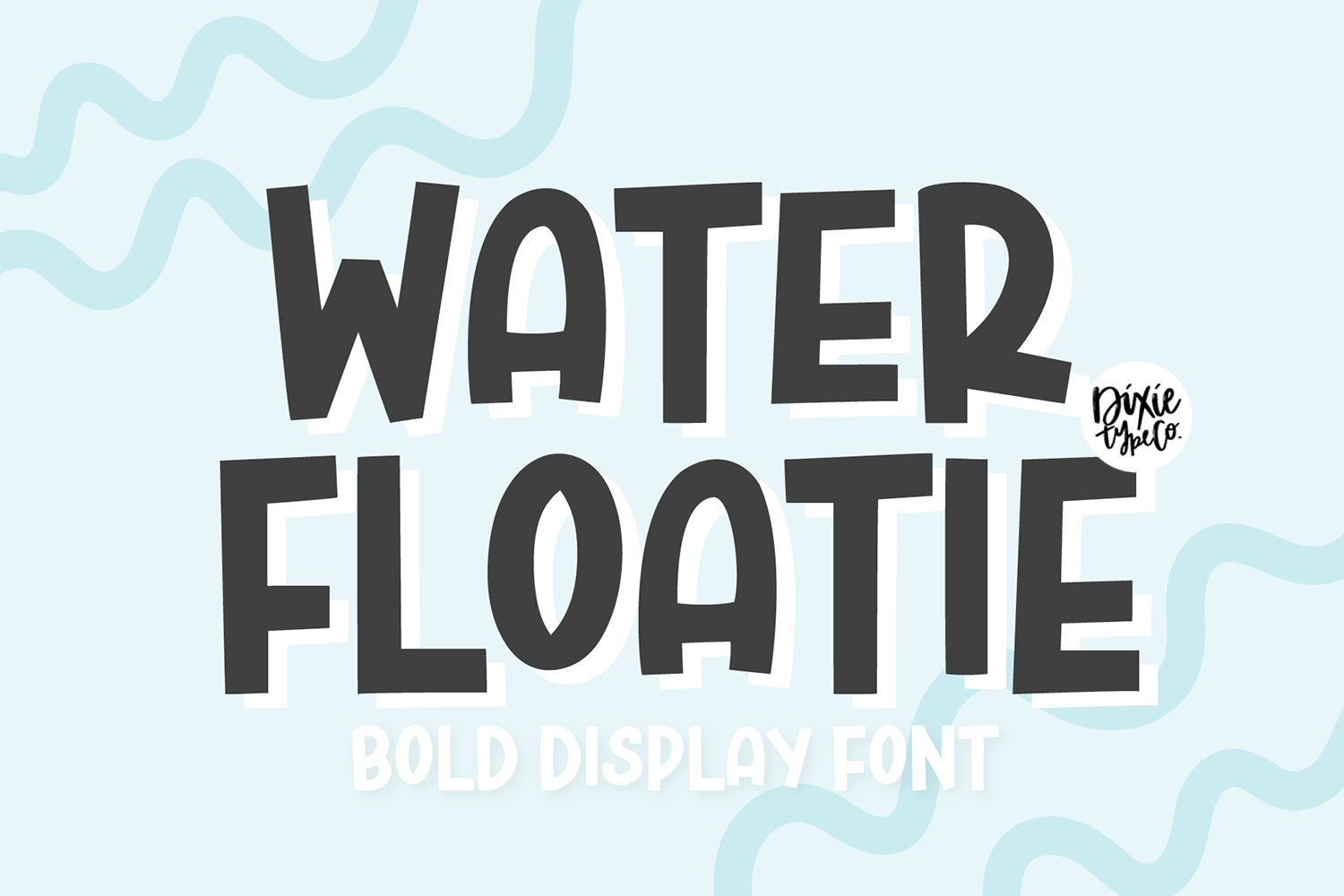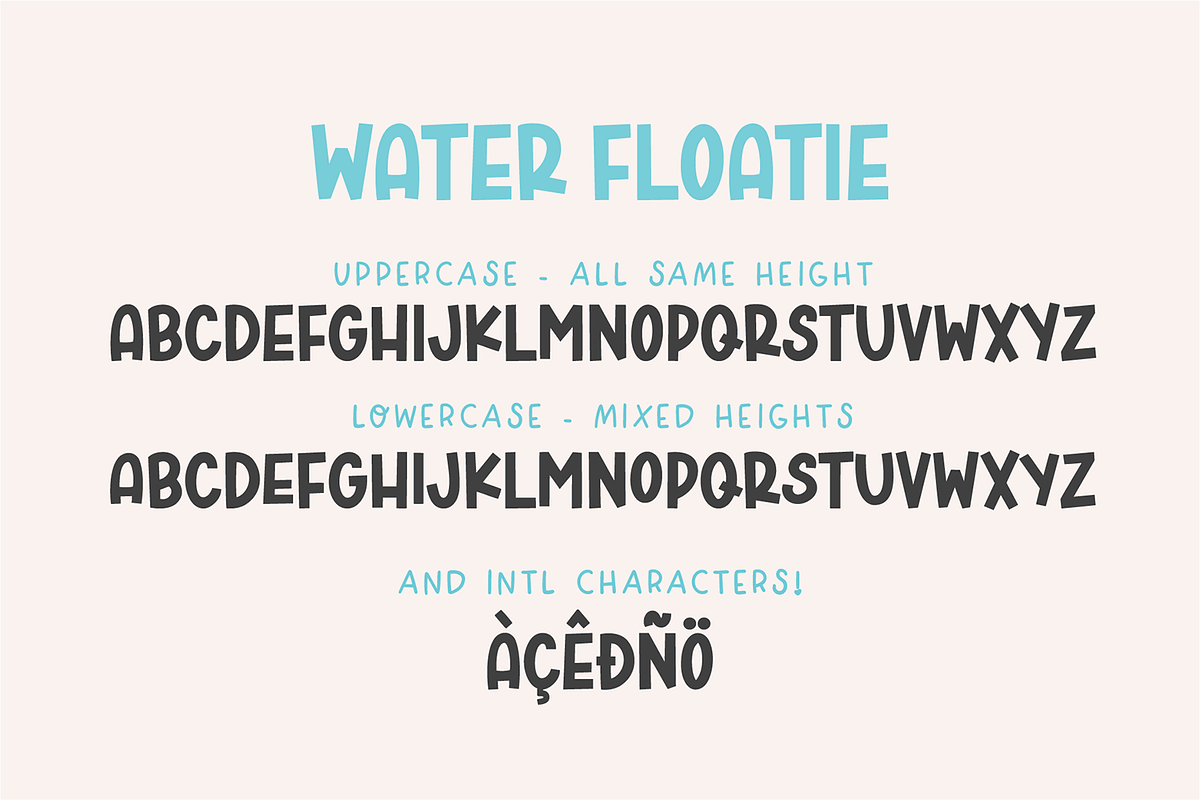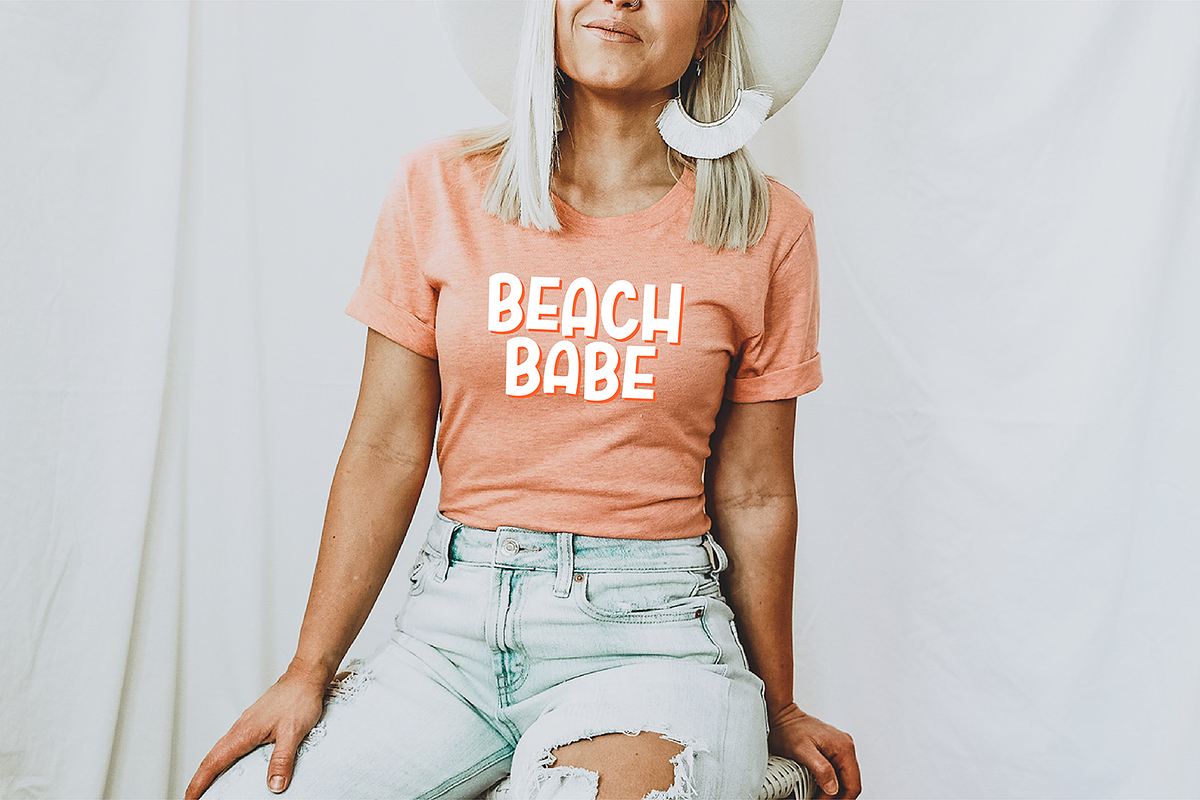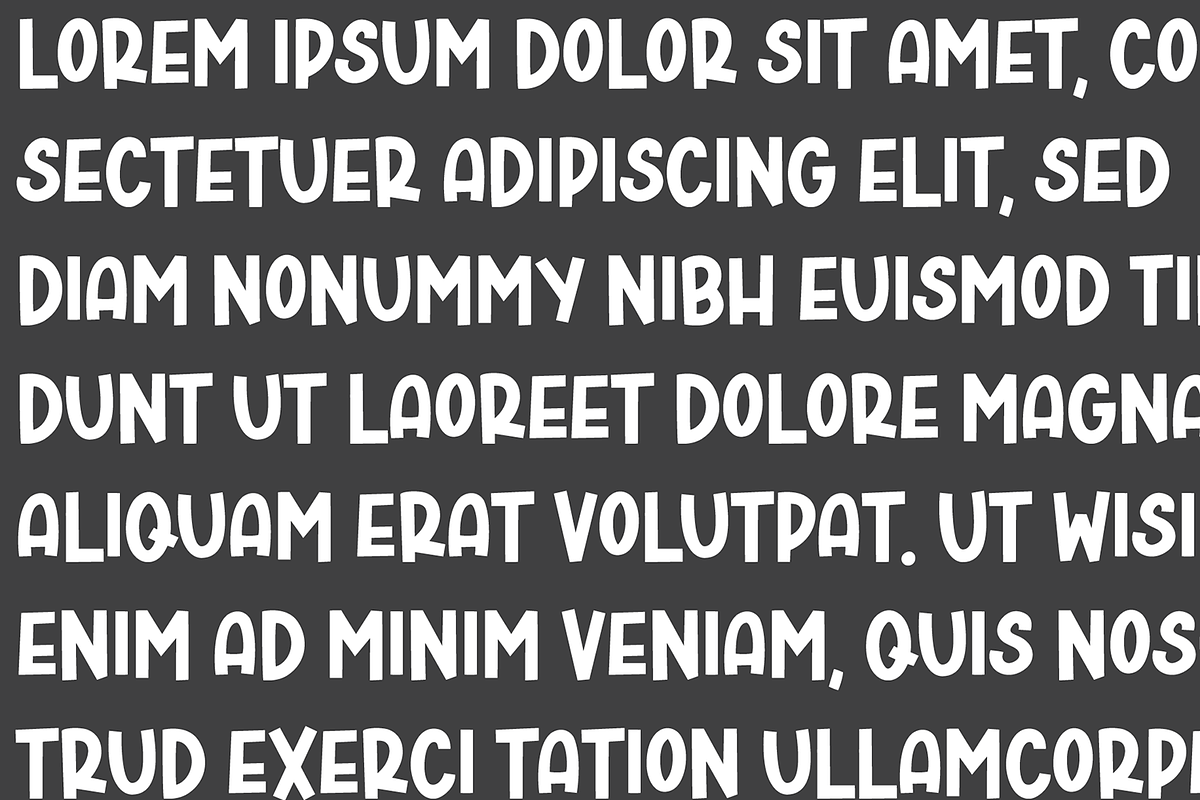
WATER FLOATIE Display Font
"Water Floatie" hand-lettered display font.
Includes international characters!
{ A typographic font hand-lettered with love by Dixie Type Co. }
Water Floatie is a bold hand-drawn font that is perfect for social media or crafty projects. Use it for t-shirts, birthday invitations, and more! This font includes numbers, basic punctuation marks, and international characters.